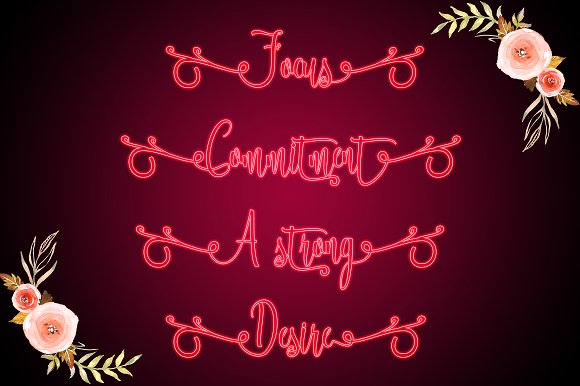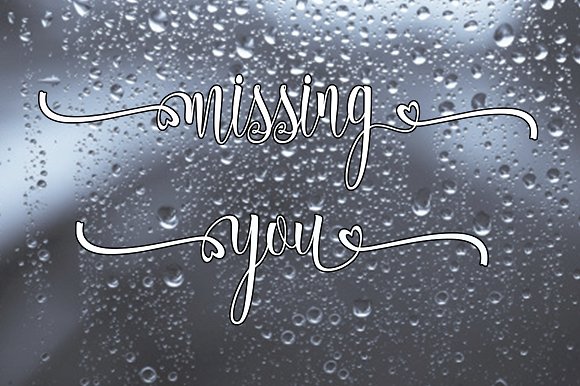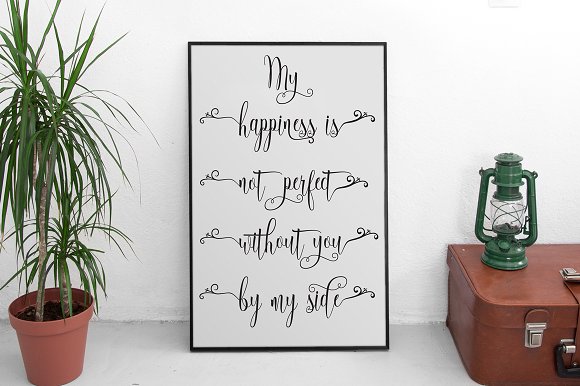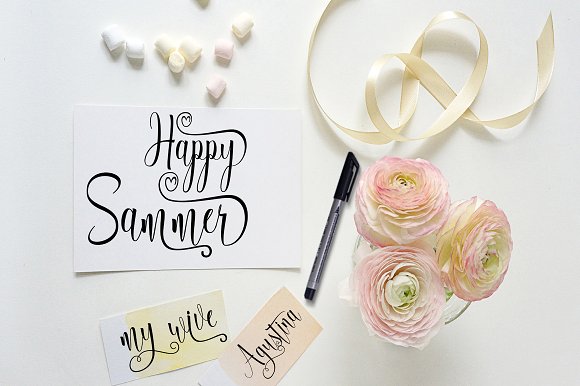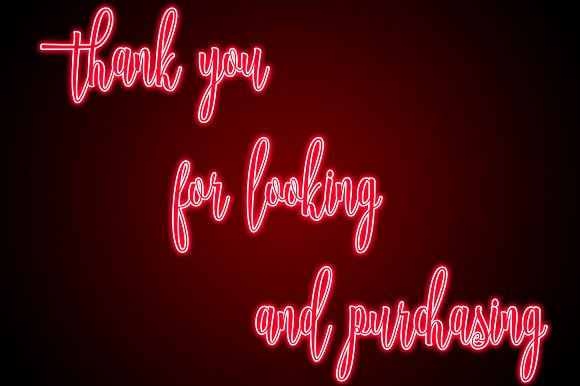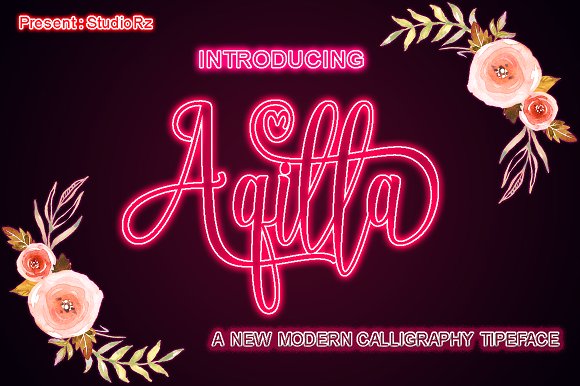
Aqilla Font: Elevate Your Designs with Modern Calligraphy
Aqilla is a stunning modern calligraphy font crafted by the talented team at StudioRZ. This beautiful font is designed to add a touch of elegance and sophistication to any design project. In this article, we’ll dive into the world of Aqilla Font, exploring its features, benefits, and uses, making it a must-read for designers and crafters alike.
The Story Behind Aqilla Font
Aqilla Font is a creation of StudioRZ, a renowned design studio known for producing high-quality fonts that cater to the needs of designers and crafters. The team at StudioRZ has poured their heart and soul into crafting Aqilla, making it a unique and exceptional addition to the world of calligraphy fonts.
What Makes Aqilla Font Stand Out?
Aqilla Font boasts a range of features that set it apart from other calligraphy fonts. Here are some of its key characteristics:
- Modern Calligraphy Style: Aqilla Font embodies a modern calligraphy style, making it perfect for designs that require a touch of sophistication and elegance.
- Unique Letterforms: Each letterform in Aqilla Font is carefully crafted to ensure that it is distinct and visually appealing.
- High-Quality Design: The font is designed with precision and attention to detail, ensuring that it looks great in any design project.
- Versatile: Aqilla Font is suitable for a wide range of design projects, from branding and advertising to packaging and digital media.
Benefits of Using Aqilla Font
Using Aqilla Font in your design projects can bring numerous benefits, including:
- Enhanced Visual Appeal: Aqilla Font can add a touch of elegance and sophistication to your designs, making them more visually appealing.
- Improved Brand Image: By using Aqilla Font, you can create a unique and memorable brand image that sets you apart from your competitors.
- Increased Versatility: Aqilla Font can be used in a variety of design projects, making it a valuable addition to your font library.
Uses of Aqilla Font
Aqilla Font is a versatile font that can be used in a wide range of design projects, including:
- Branding and Advertising: Use Aqilla Font to create stunning brand logos, advertisements, and marketing materials.
- Packaging Design: Aqilla Font is perfect for packaging design, adding a touch of elegance and sophistication to product labels and packaging.
- Digital Media: Use Aqilla Font to create engaging digital content, such as social media graphics, blog posts, and website headers.
- Crafting and Scrapbooking: Aqilla Font is also suitable for crafting and scrapbooking projects, adding a personal touch to your creations.
Tips for Using Aqilla Font
Here are some tips for using Aqilla Font effectively in your design projects:
- Pair it with Other Fonts: Experiment with pairing Aqilla Font with other fonts to create a unique and visually appealing design.
- Use it in Headlines: Aqilla Font is perfect for headlines and titles, adding a touch of elegance and sophistication to your designs.
- Experiment with Colors: Try using Aqilla Font in different colors to add depth and visual interest to your designs.
Aqilla Font is a stunning modern calligraphy font that can elevate your designs to the next level. With its unique letterforms, high-quality design, and versatility, Aqilla Font is a valuable addition to any designer’s font library. Whether you’re a designer, crafter, or DIY enthusiast, Aqilla Font is sure to inspire your creativity and help you create stunning designs that leave a lasting impression.